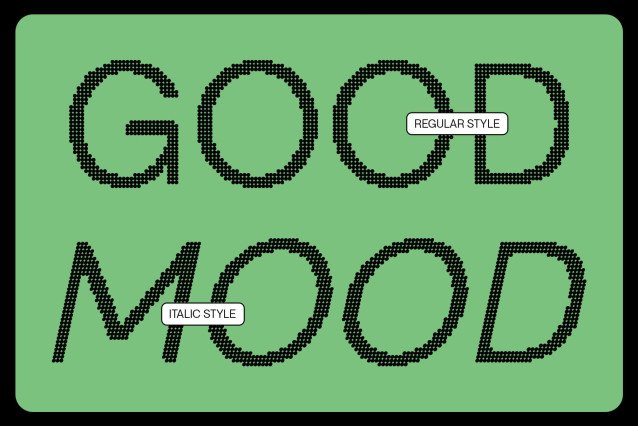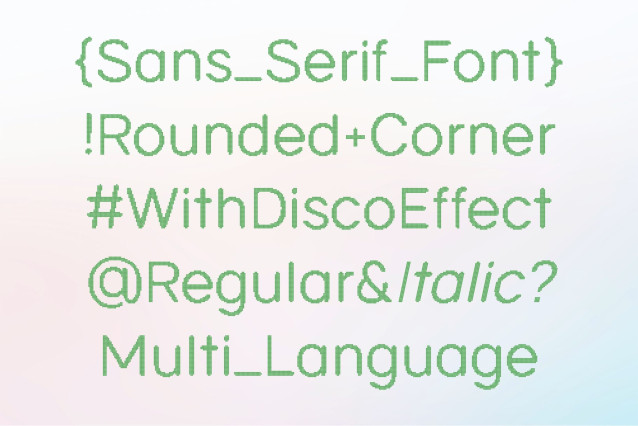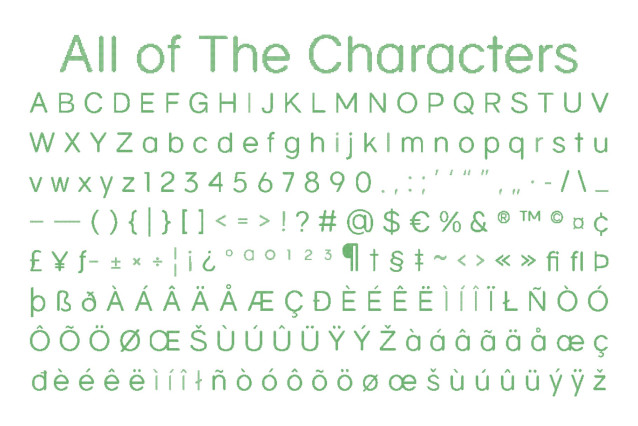
Napzer Rounded Disco Font
Napzer Rounded Disco Font – This friendly font features geometric, sleek shapes softened with rounded corners, creating a modern, elegant, and approachable look. Its clean sans serif design ensures readability and versatility, making it perfect for projects that want a professional yet friendly appeal.
A sparkling disco effect adds visual rhythm, energy, and glamour to each character. This dynamic detail gives text a sense of movement and liveliness, transforming headlines, posters, and branding materials into eye-catching, vibrant designs. The balance between geometric precision and smooth curves makes it versatile for a wide range of creative projects.
Modern, Stylish, and Elegant
By blending geometric precision with soft rounded curves and disco-inspired sparkle, this dynamic and energetic font achieves a balanced style that is contemporary, elegant, and playful. It’s ideal for creative projects that need to feel fresh, engaging, and visually striking.
Perfect for Branding and Creative Projects
This creative and stylish font excels in branding, posters, editorials, packaging, social media, and other creative applications. Its combination of clean geometric forms, friendly rounded shapes, and disco flair ensures that designs are stylish, modern, and attention-grabbing, giving every project a polished, dynamic, and memorable presence.